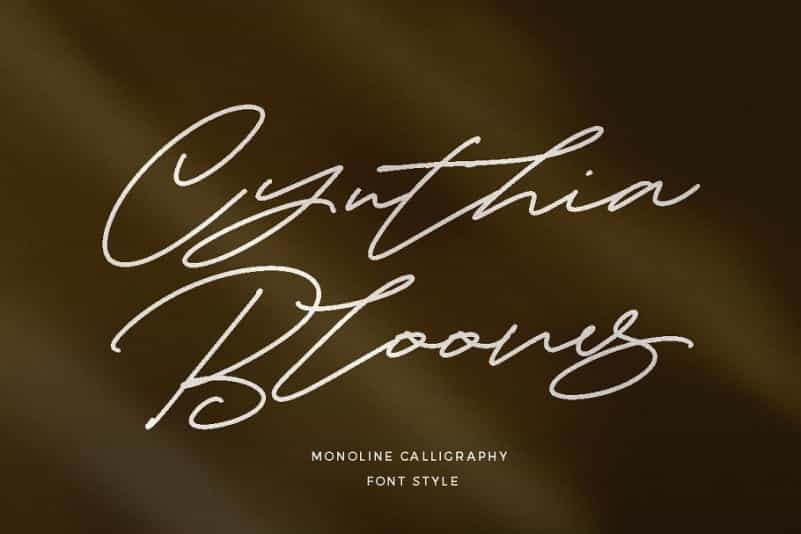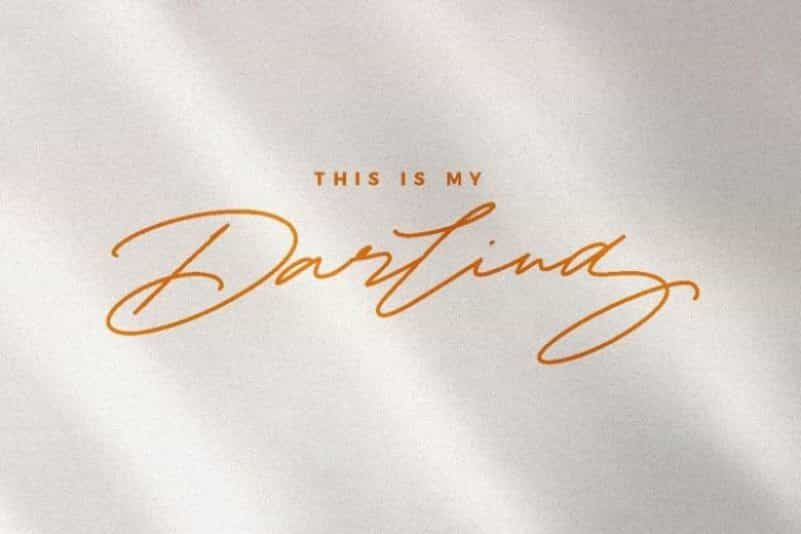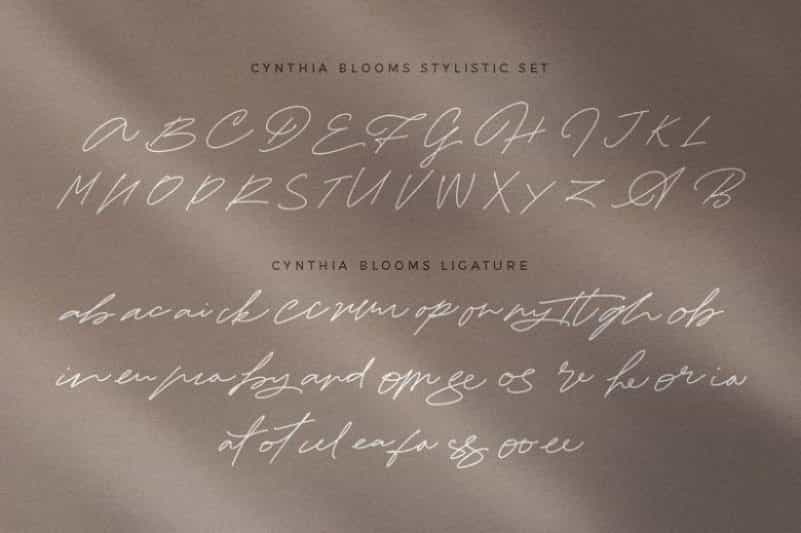
Cynthia Blooms is a script font that adds an organic and natural touch to projects. Ideal, for logo designs, branding materials, weddings, fashion items, label designs book covers, t-shirts instagram posts and more to give your work an sophisticated flair.